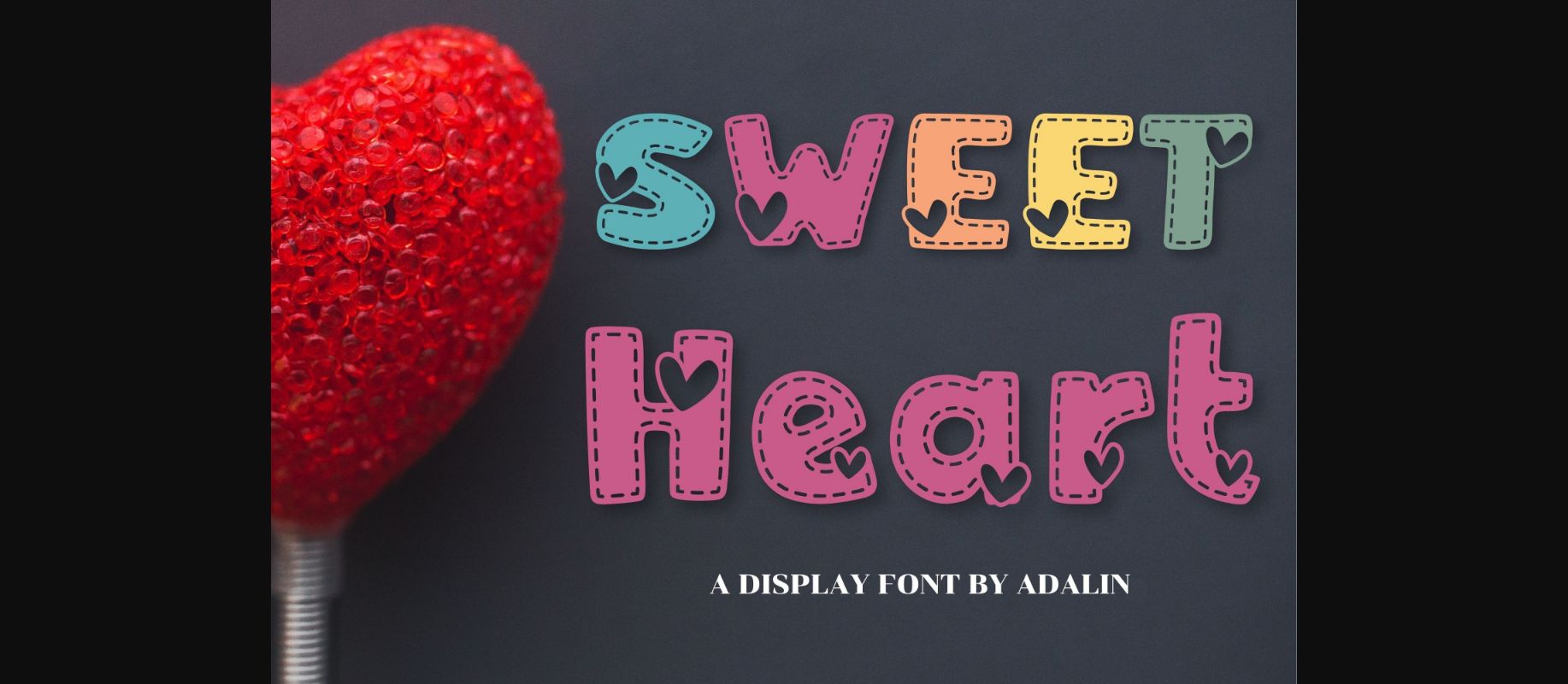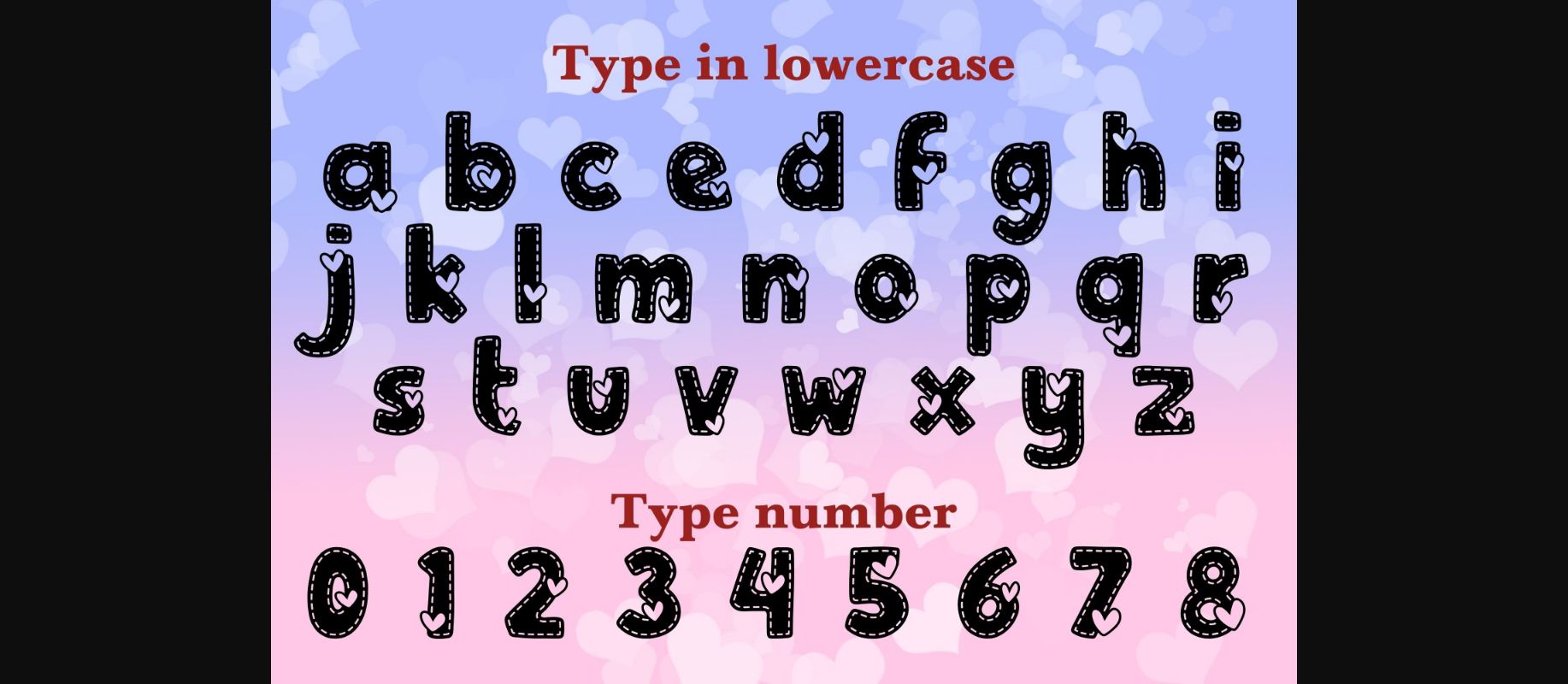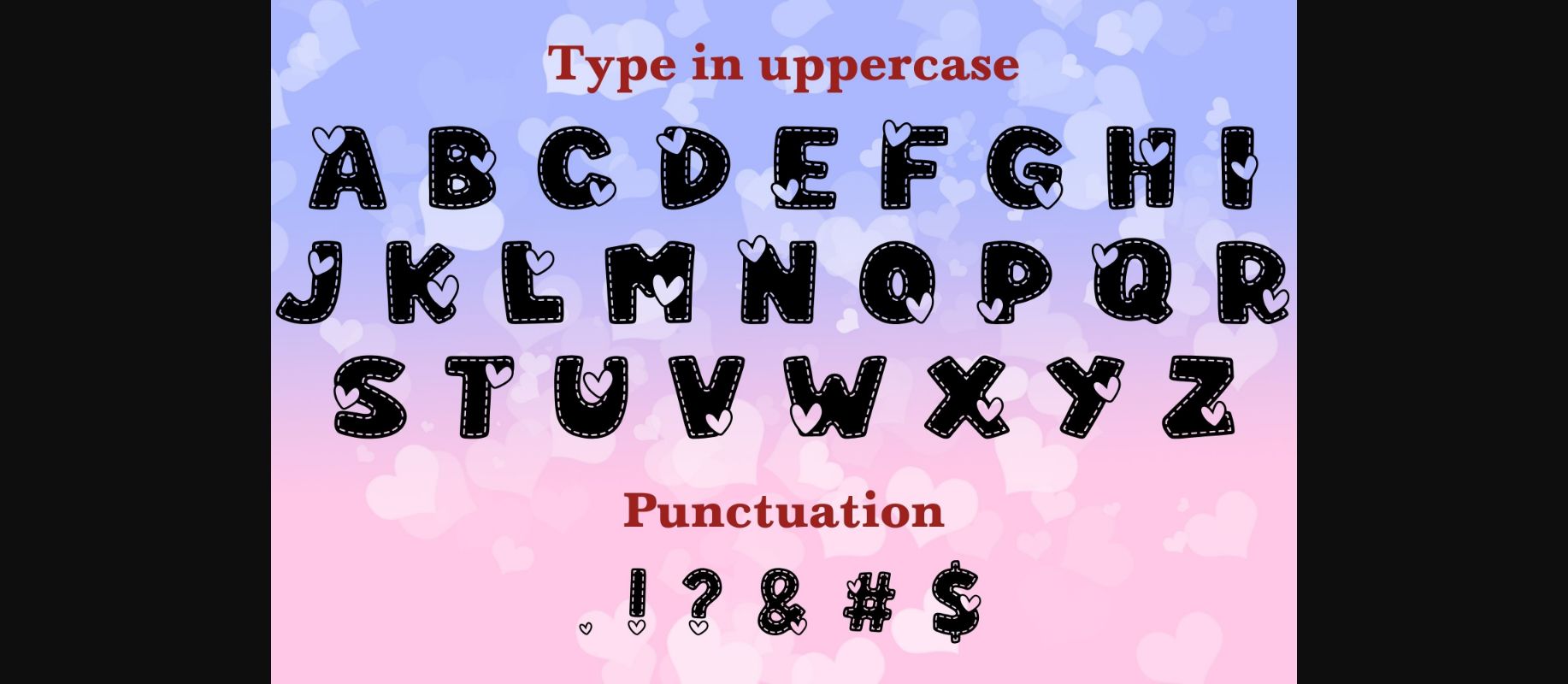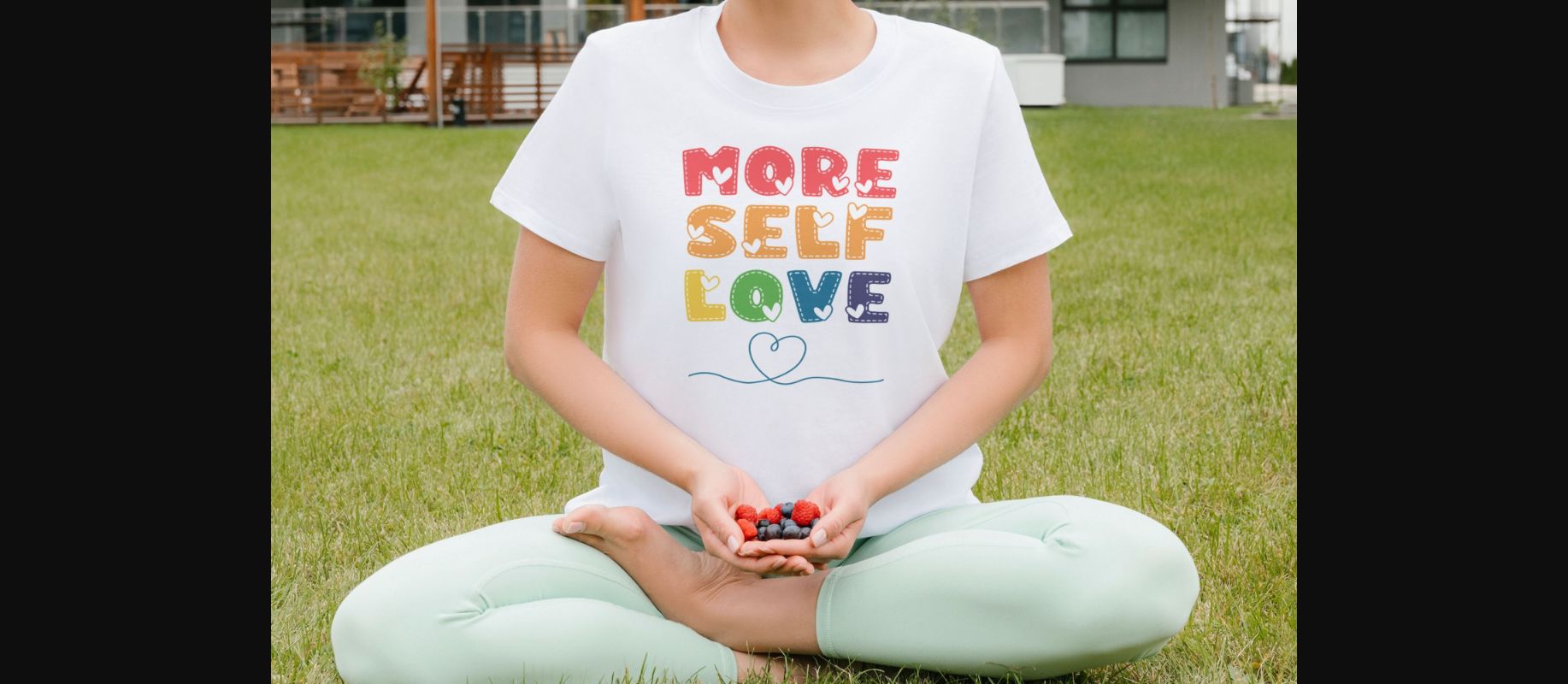
About Sweet Heart Font
Sweet Heart is a cute decorative font ideal for crafting, and perfect for designs that need a playful, cheery accent. Sweet Heart is suitable for book covers, posters, packaging, merchandise, logotypes, and many more!